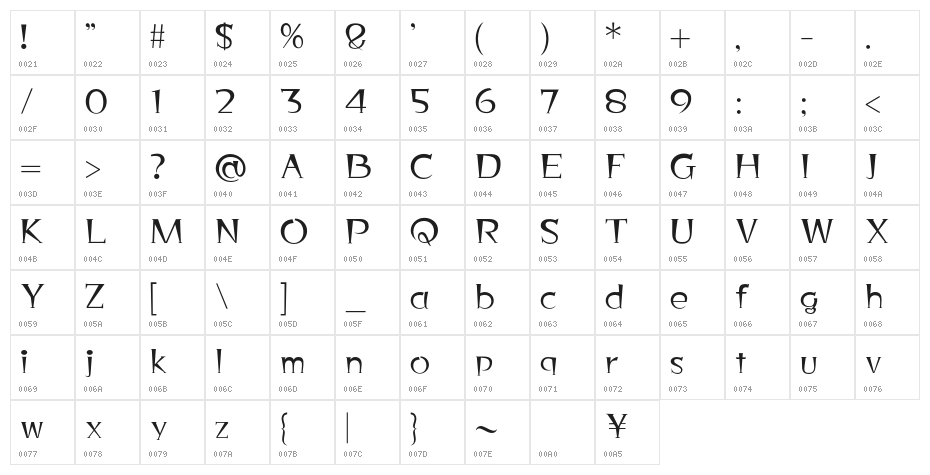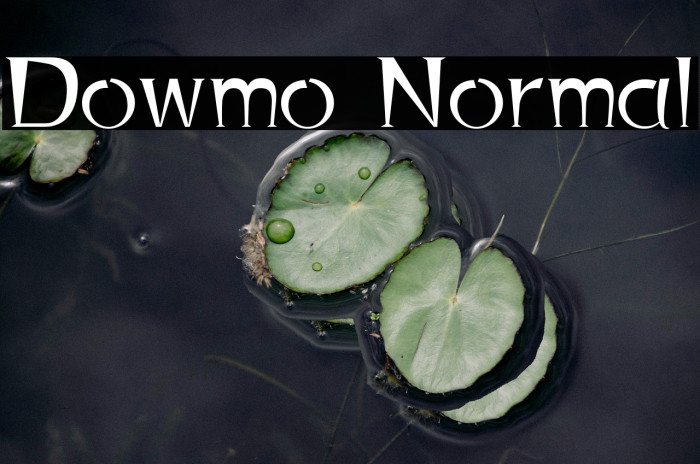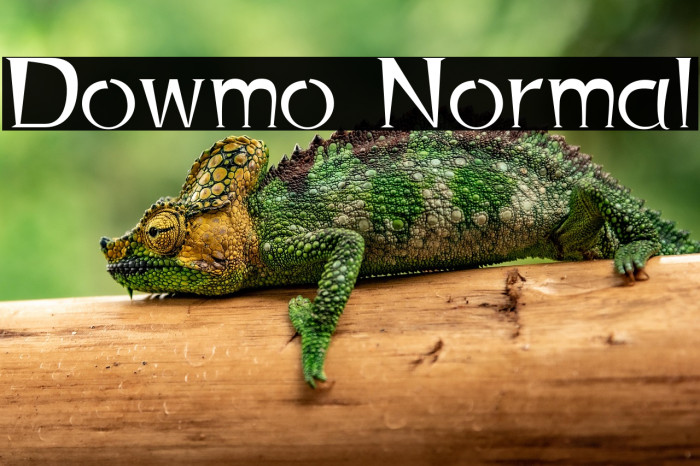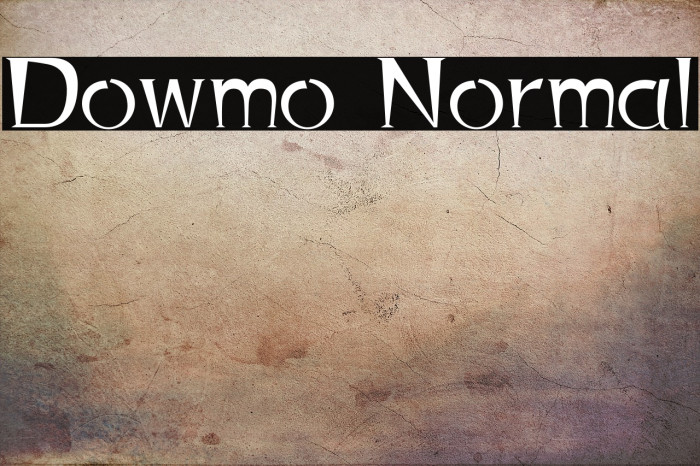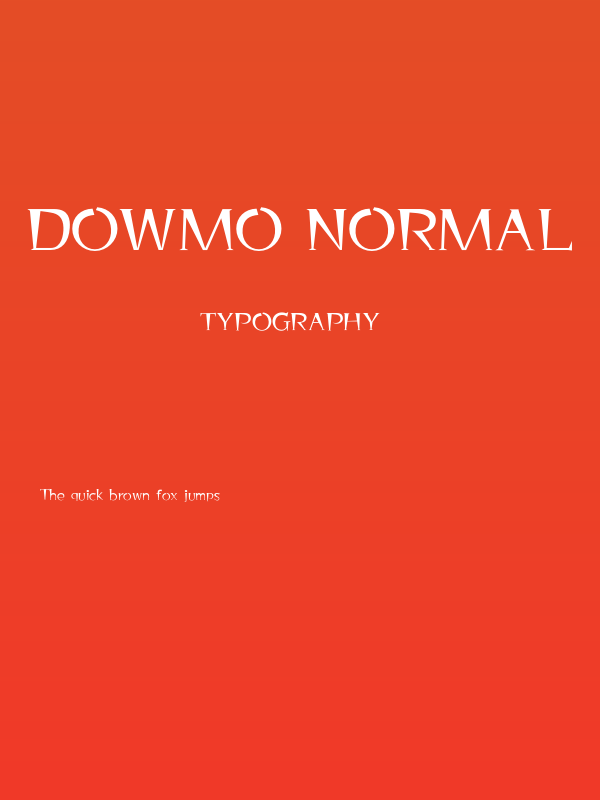
Dowmo Normal Font
Dowmo Normal Description
This font features a distinctive and artistic style with a unique blend of sharp angles and smooth curves. The uppercase letters exhibit a bold presence with pointed serifs, creating a dynamic and eye-catching appearance. The lowercase letters maintain a consistent style, with a slightly more rounded approach, offering a harmonious balance. Numbers and special characters follow the same design principles, ensuring uniformity across all elements. The overall aesthetic is both modern and slightly whimsical, making it suitable for creative and expressive projects.